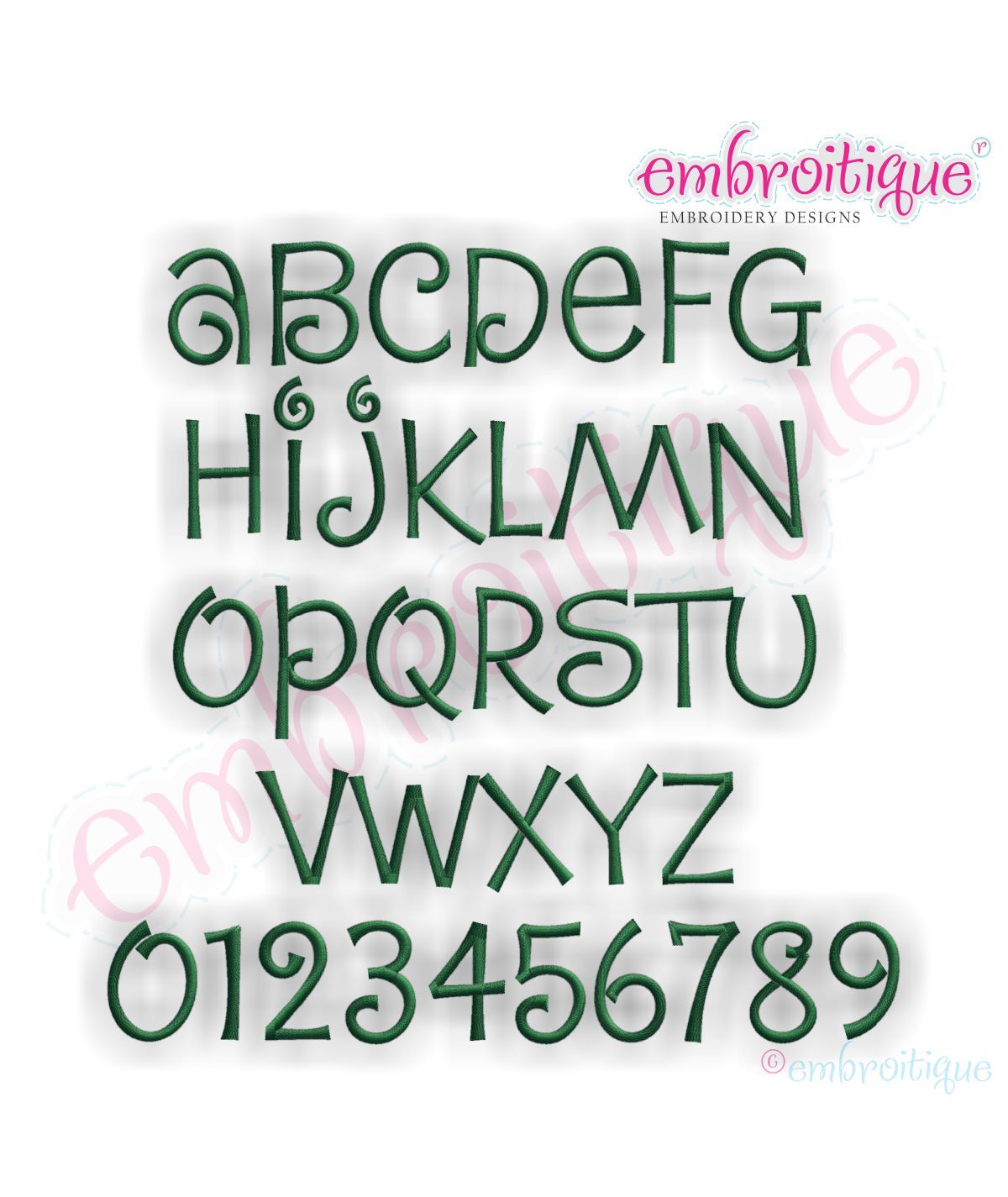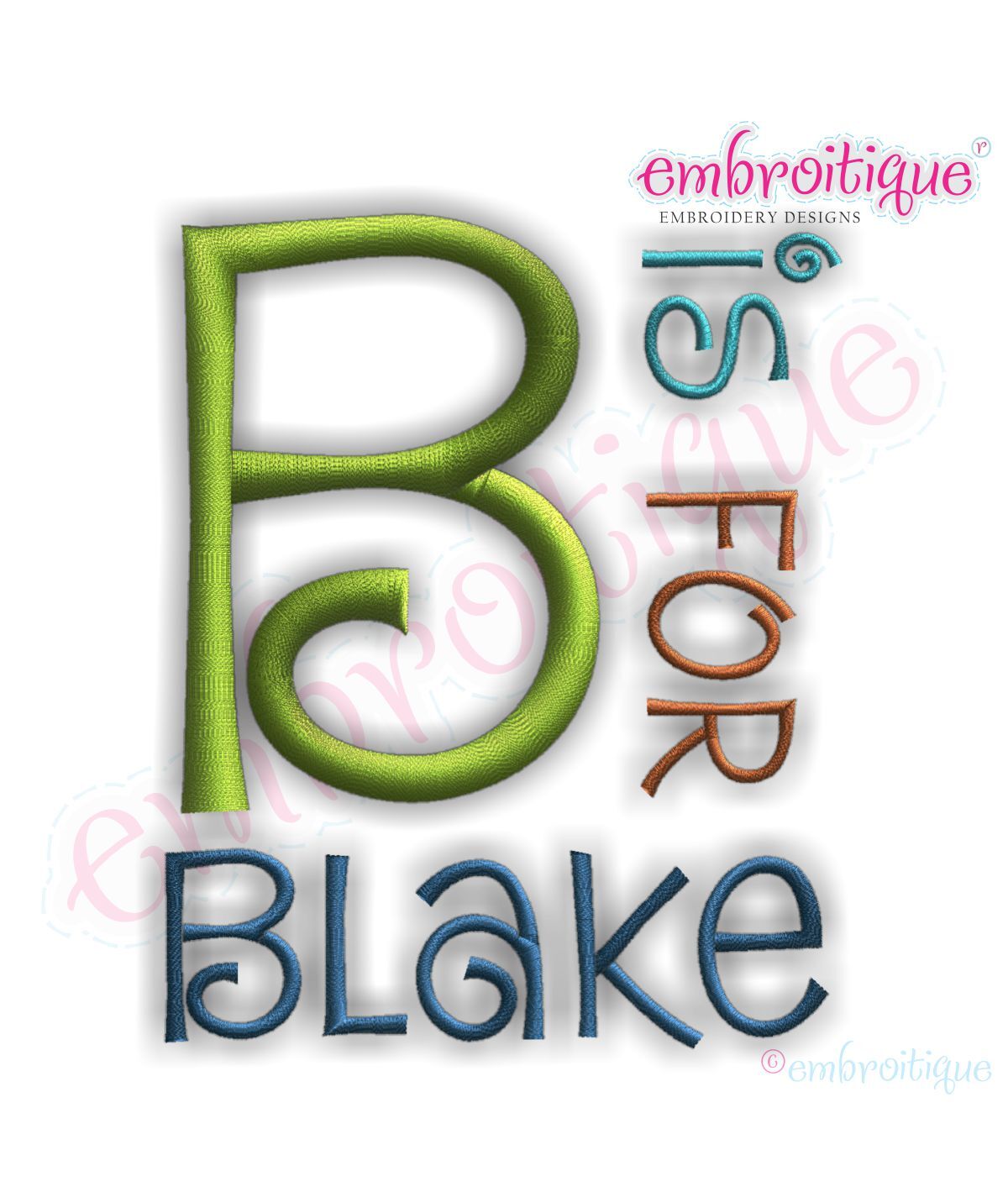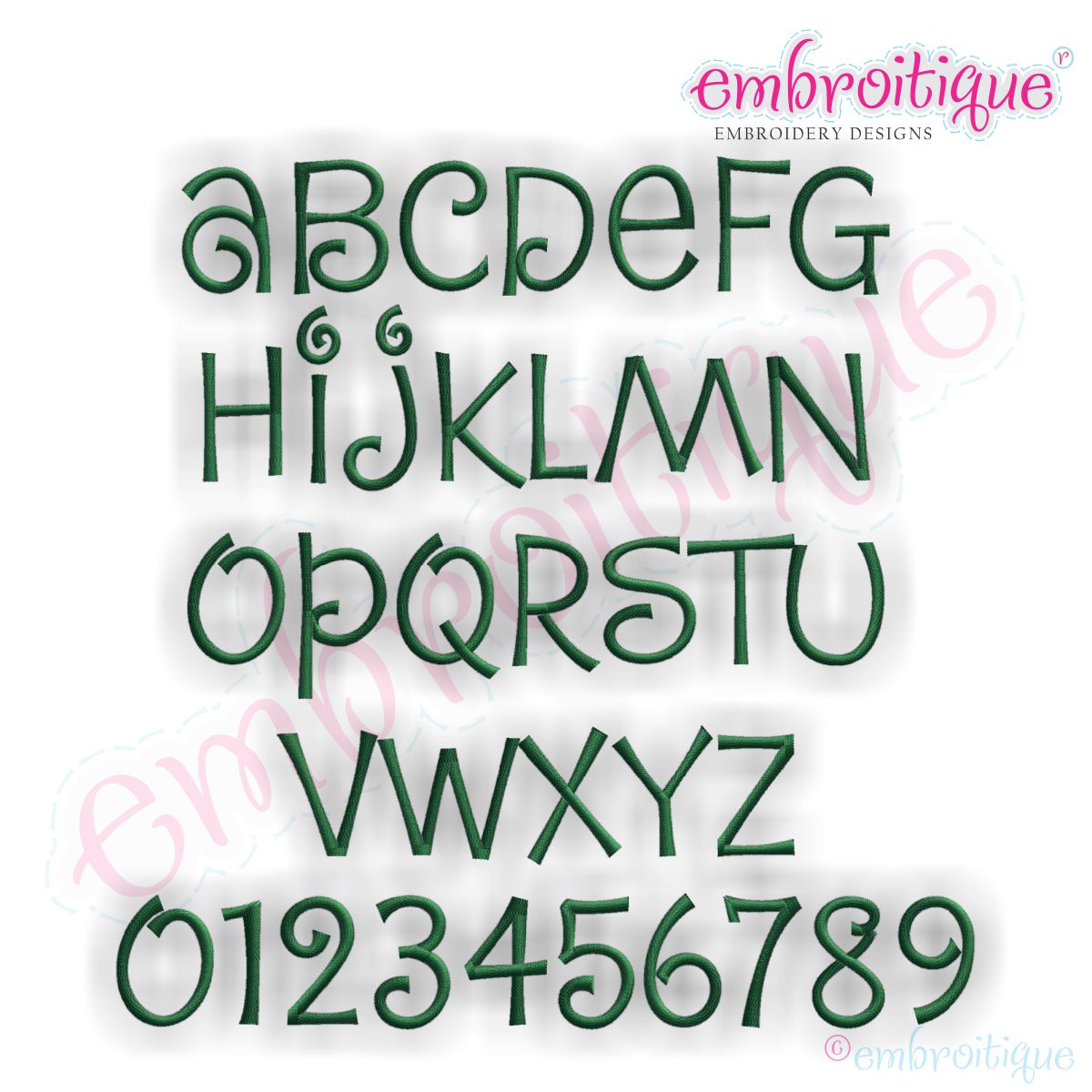
Blake Monogram Set
Build your own monograms, names, and sayings with these fun letters and numbers. Â Each letter and number is an individual file. Â "B is for Blake" is an example of what you can do with this set!
A-Z & Numbers 0-9 &